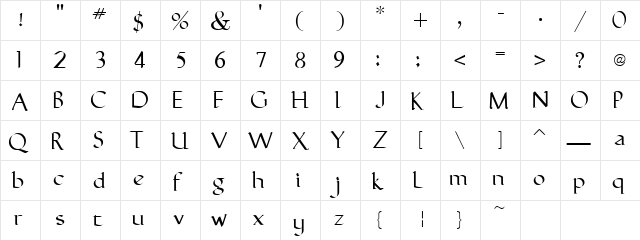
CLB-JewishHolidays-Base Regular Font Preview
CLB-JewishHolidays-Base Regular
CLB-JewishHolidays-Base Regular Font Details
Design Context for CLB-JewishHolidays-Base Typeface
CLB-JewishHolidays-Base takes a measured approach to typography — its balanced proportions and neutral character make it a reliable workhorse for both digital and print work.